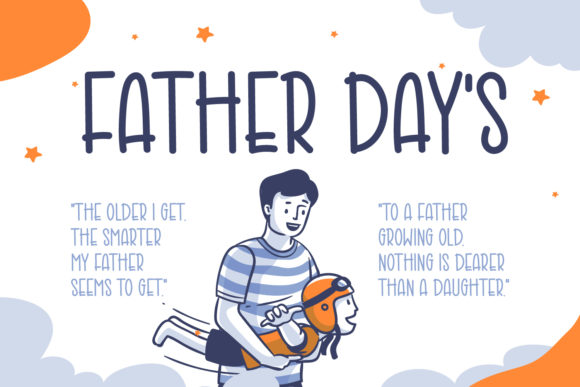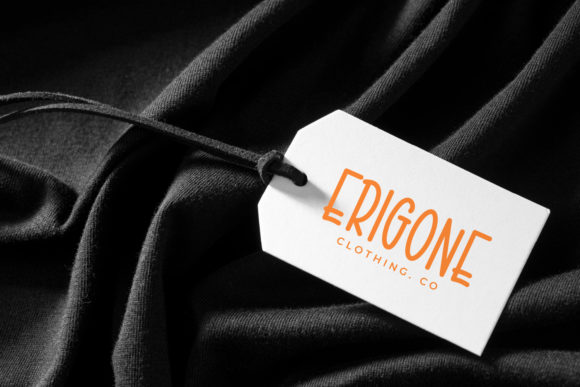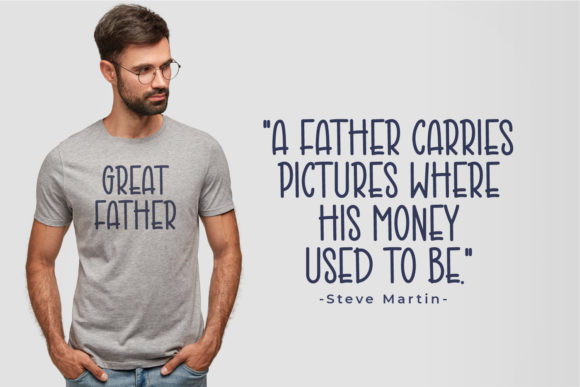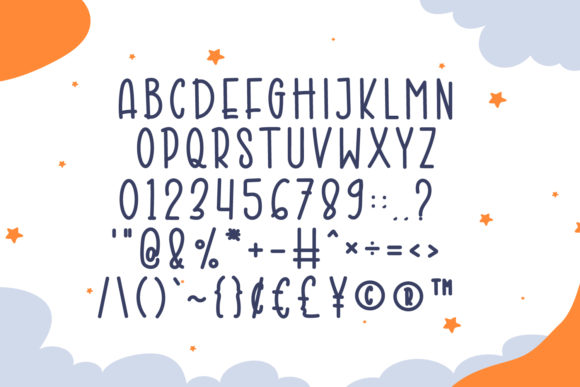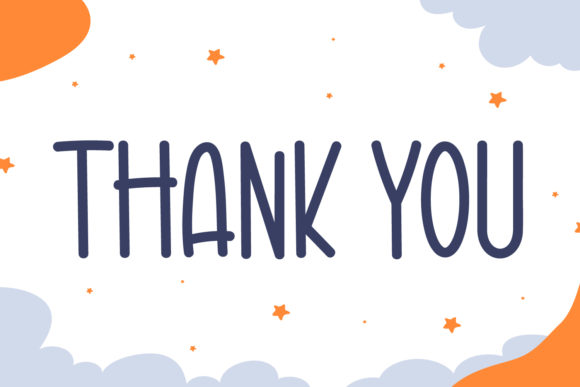
Introducing Good Father Font: The Perfect Addition to Your Creative Projects
Are you a designer, crafter, or DIY enthusiast looking for a fun and versatile font to elevate your creative projects? Look no further than Good Father Font! This adorable display font is perfect for a wide range of applications, from Instagram quotes and calligraphy scripts to shirt designs, websites, branding, and more.
What Makes Good Father Font So Special?
Good Father Font is a unique and eye-catching display font that is sure to turn any creative idea into a true piece of art. Its fun and cute design makes it perfect for projects that require a playful touch, such as children’s designs, blogs, logos, invitations, and more. The font’s versatility and flexibility make it an excellent choice for designers and crafters who want to add a personal touch to their work.
Good Father Font is an excellent choice for various creative projects, including:
- Instagram and Social Media: Use Good Father Font to create engaging and visually appealing quotes, captions, and graphics that will make your Instagram feed stand out.
- Calligraphy Scripts: Add a personal touch to your DIY projects, such as handmade cards, gift tags, and journals, with this beautiful font.
- Shirt Designs: Create custom t-shirts, hoodies, and other apparel with Good Father Font for a unique and stylish look.
- Websites and Branding: Use this font to create a cohesive brand identity, including logos, headers, and website content.
- Children’s Designs: Good Father Font is perfect for kids’ party invitations, coloring books, and educational materials.
- Blogs and Articles: Add a touch of personality to your blog posts and articles with this fun and readable font.
- Logos and Icons: Use Good Father Font to create custom logos, icons, and graphics for your business or personal brand.
- Invitations and Events: Create beautiful and eye-catching invitations for weddings, birthday parties, and other special events.
Why Choose Good Father Font?
There are many reasons why Good Father Font stands out from other fonts:
- Unique Design: Good Father Font has a one-of-a-kind design that will make your projects stand out from the crowd.
- High-Quality: This font is crafted with attention to detail and is of high quality, ensuring that it will look great in any project.
- Easy to Read: Good Father Font is easy to read, making it perfect for body text, captions, and quotes.
- Versatile: This font can be used for a wide range of applications, from digital projects to print materials.
Tips for Using Good Father Font
Here are some tips for getting the most out of Good Father Font:
- Experiment with Colors: Good Father Font looks great in a variety of colors, so don’t be afraid to experiment and find the perfect color scheme for your project.
- Mix and Match: Combine Good Father Font with other fonts to create a unique and visually appealing design.
- Play with Sizes: Use Good Father Font in different sizes to create visual hierarchy and add emphasis to important text.
Good Father Font is a fun, versatile, and adorable display font that is perfect for designers, crafters, and DIY enthusiasts. Its unique design, high-quality craftsmanship, and ease of use make it an excellent choice for a wide range of creative projects. Whether you’re looking for a font for Instagram, calligraphy scripts, or shirt designs, Good Father Font is sure to turn your creative ideas into true pieces of art!